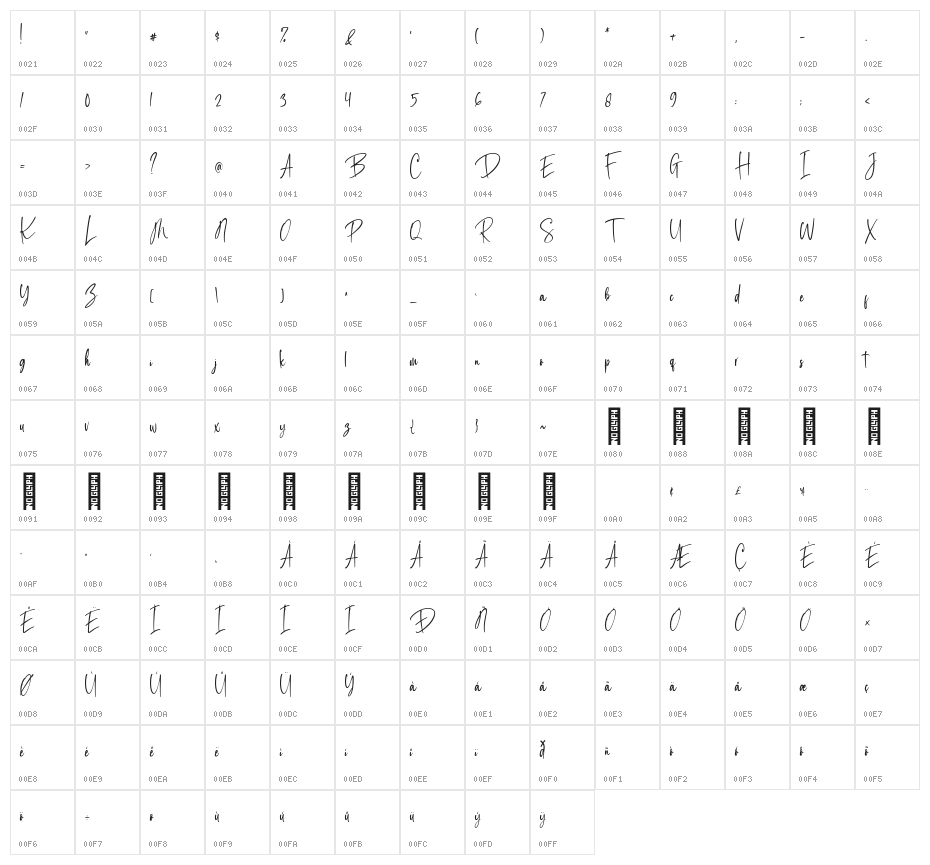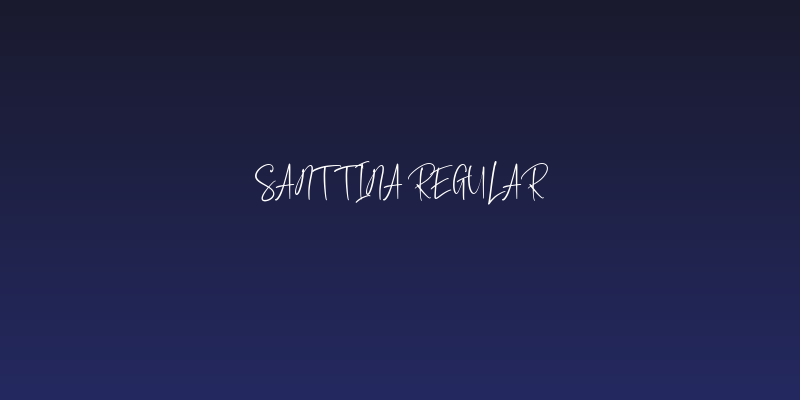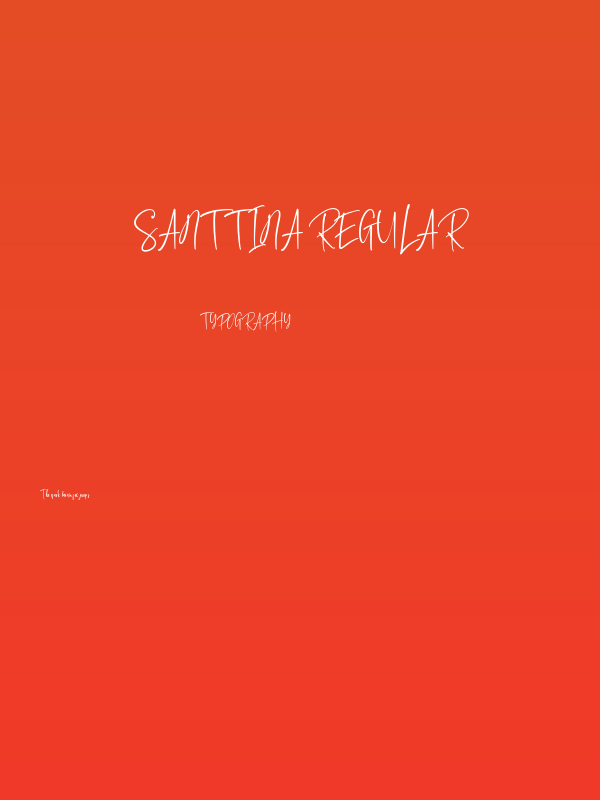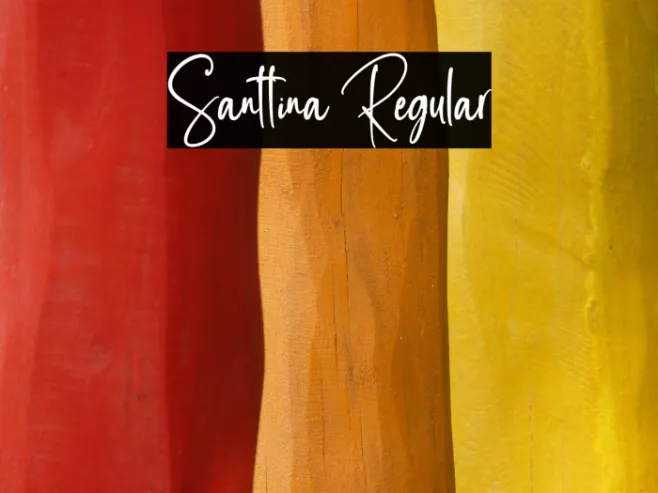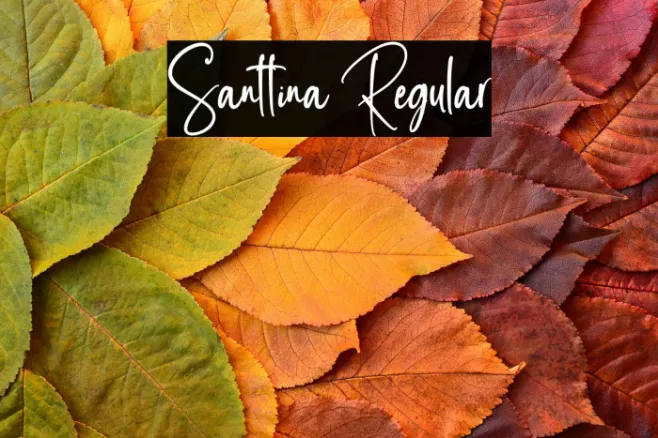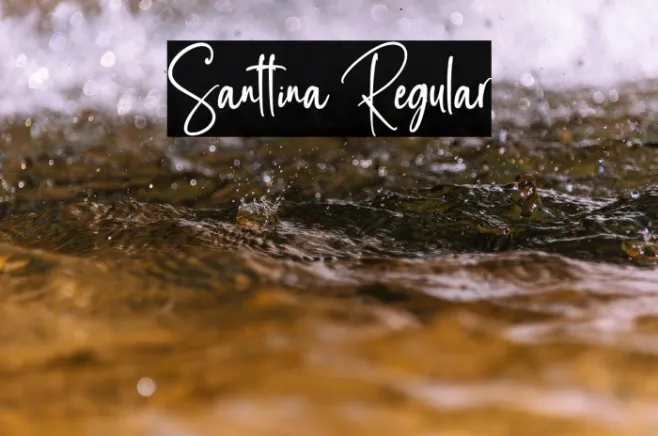
Santtina Regular Font
Santtina Regular Description
This font exhibits a lively and expressive handwritten style, characterized by its fluid and dynamic strokes. The uppercase letters are bold and slightly irregular, giving a sense of movement and personality. The lowercase letters maintain a consistent flow, with some letters extending below the baseline, adding to its casual and artistic feel. The numerals are well-integrated, matching the overall style with their playful curves. Special characters are creatively designed, maintaining the font's unique flair. This font is perfect for projects that require a personal touch, such as invitations, greeting cards, or branding materials.